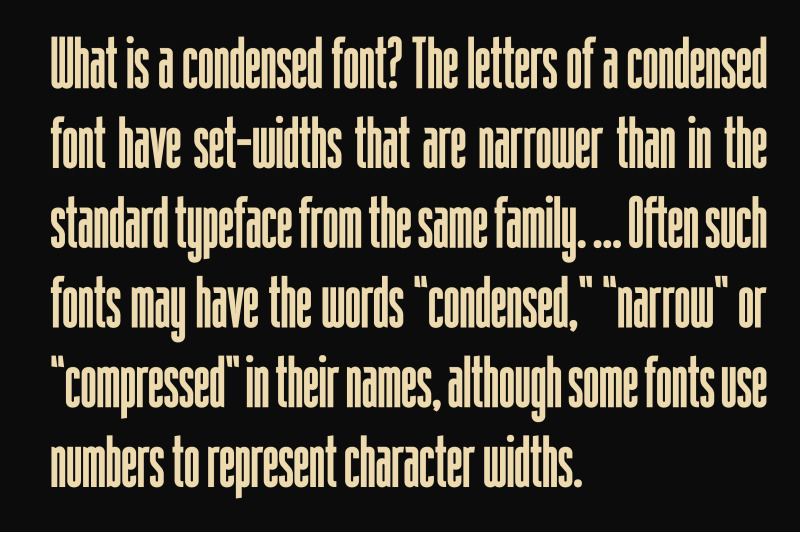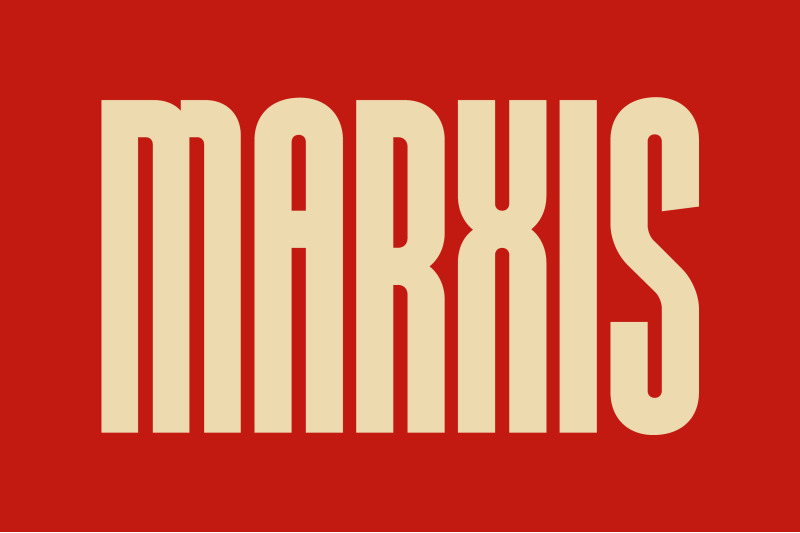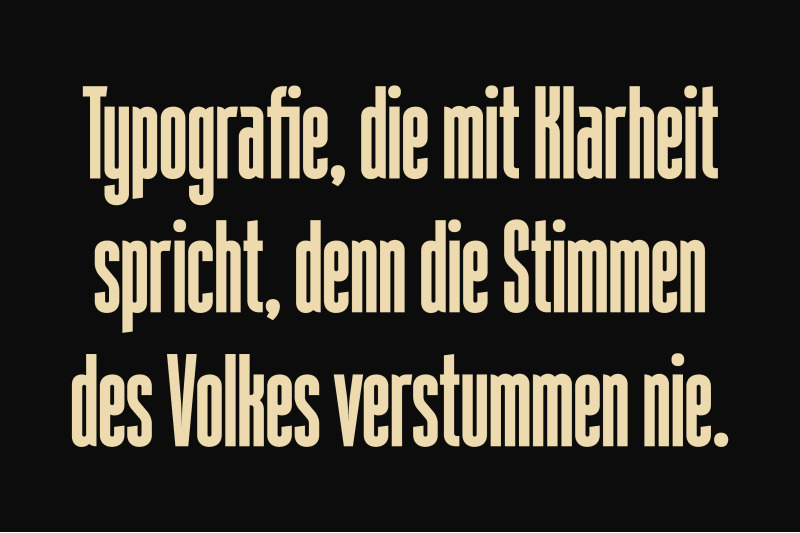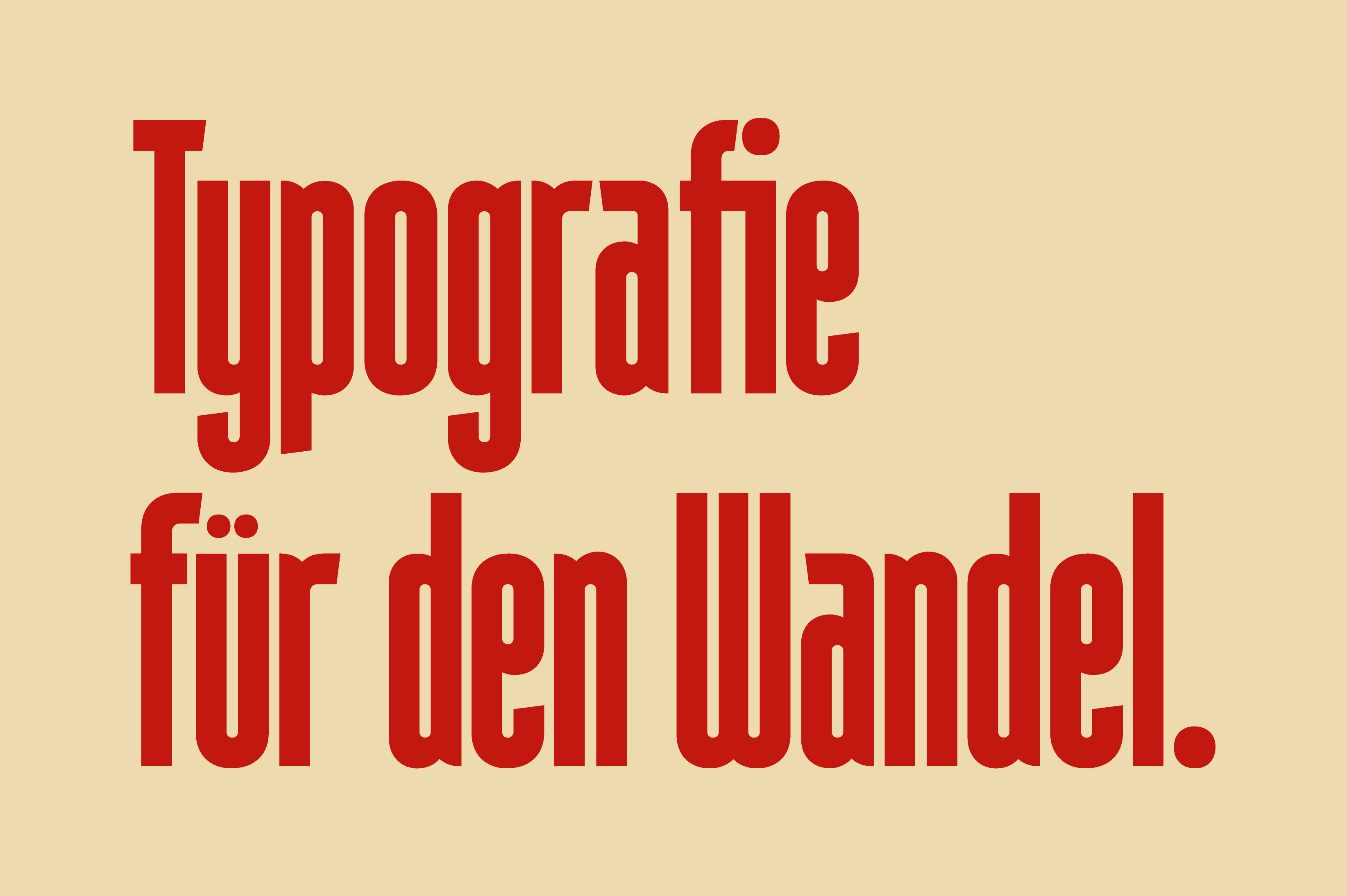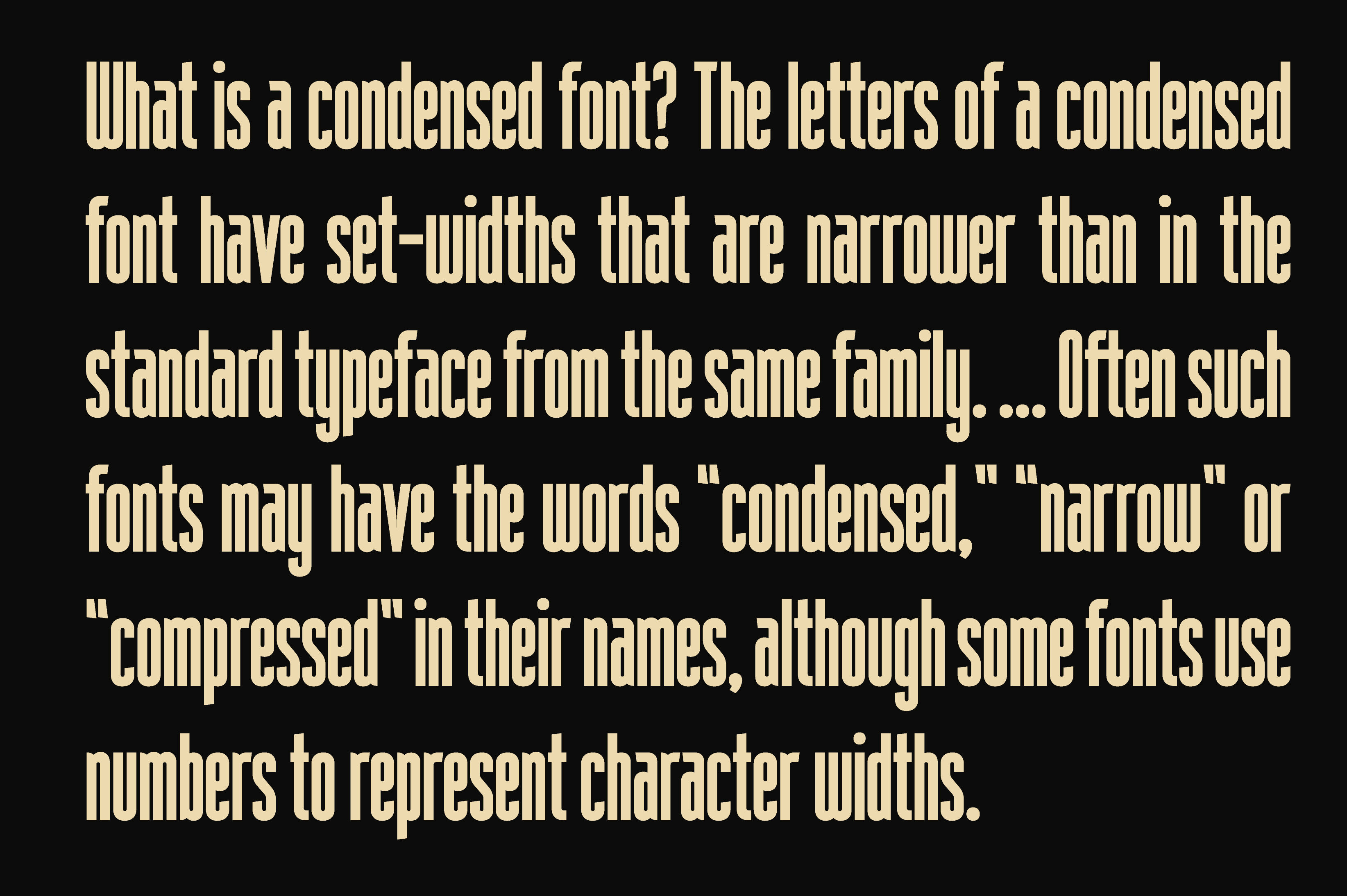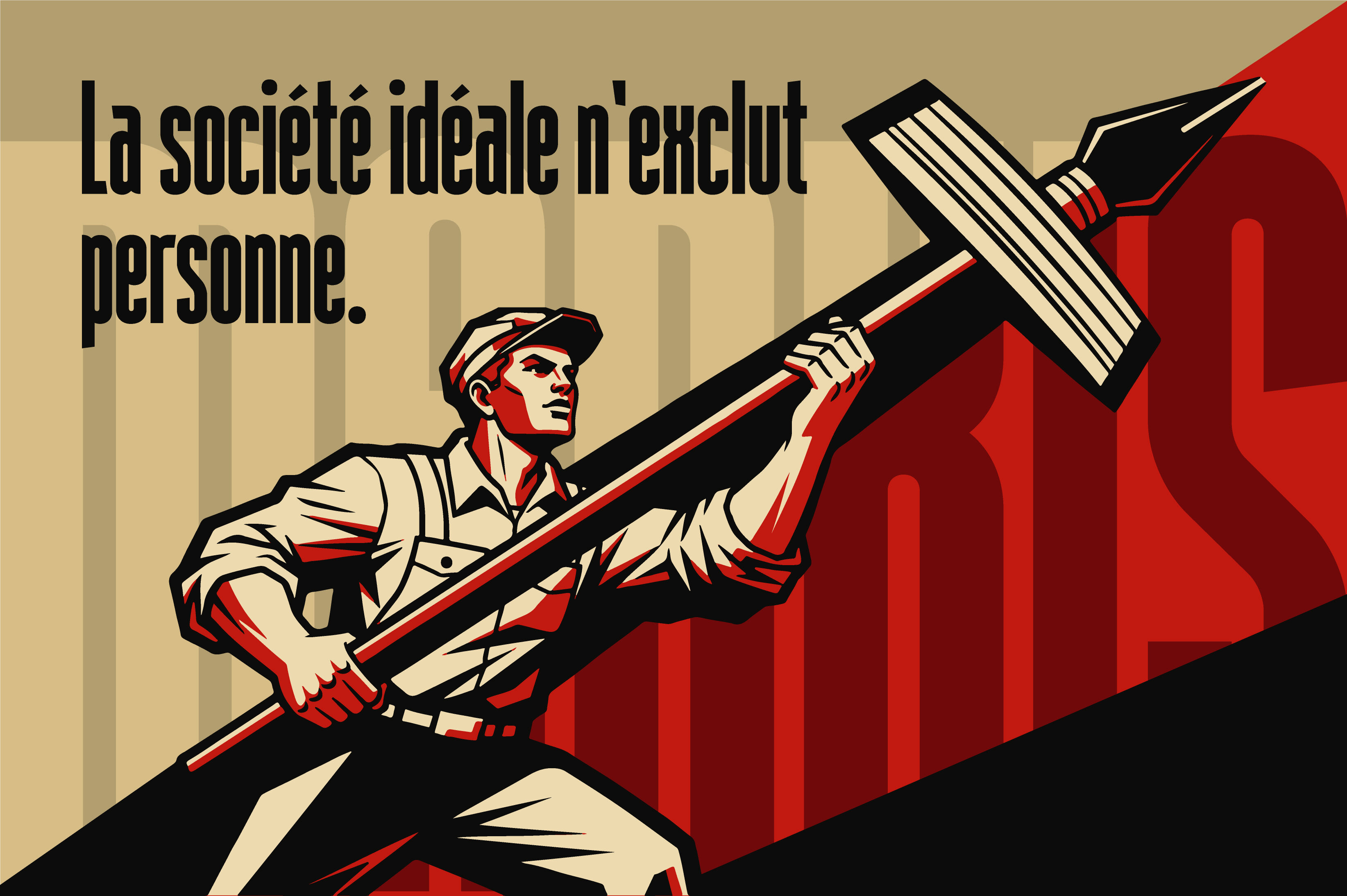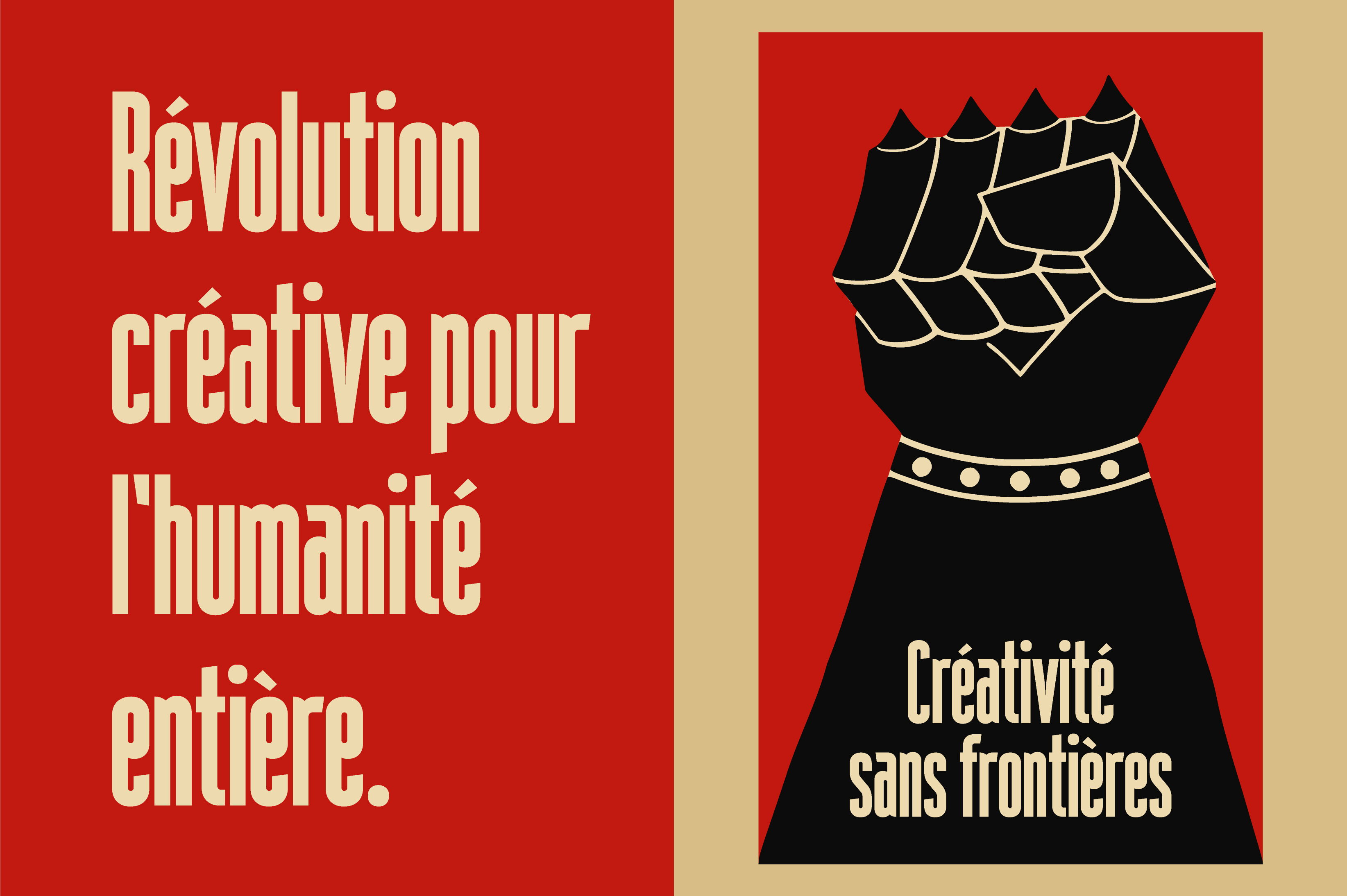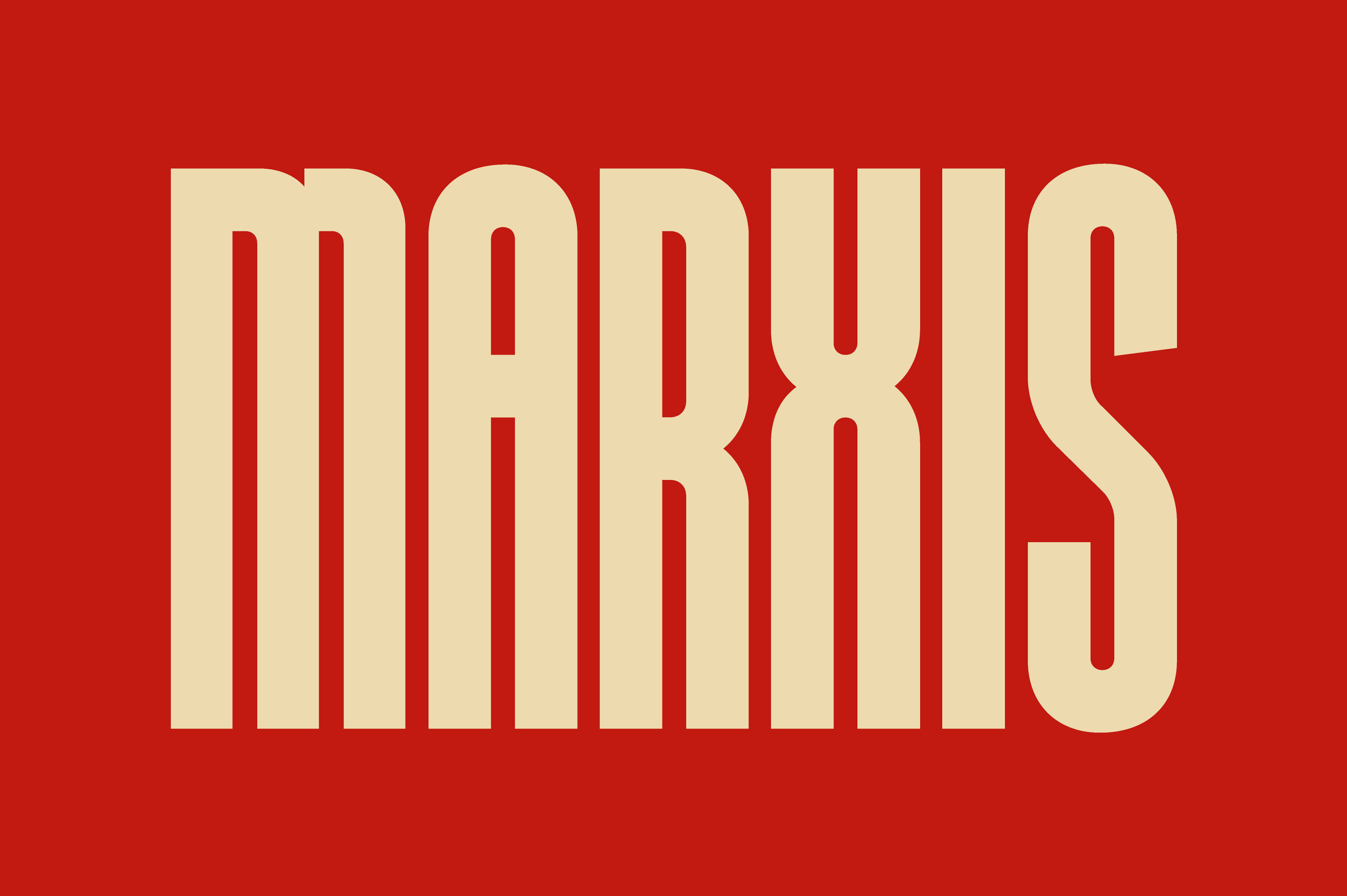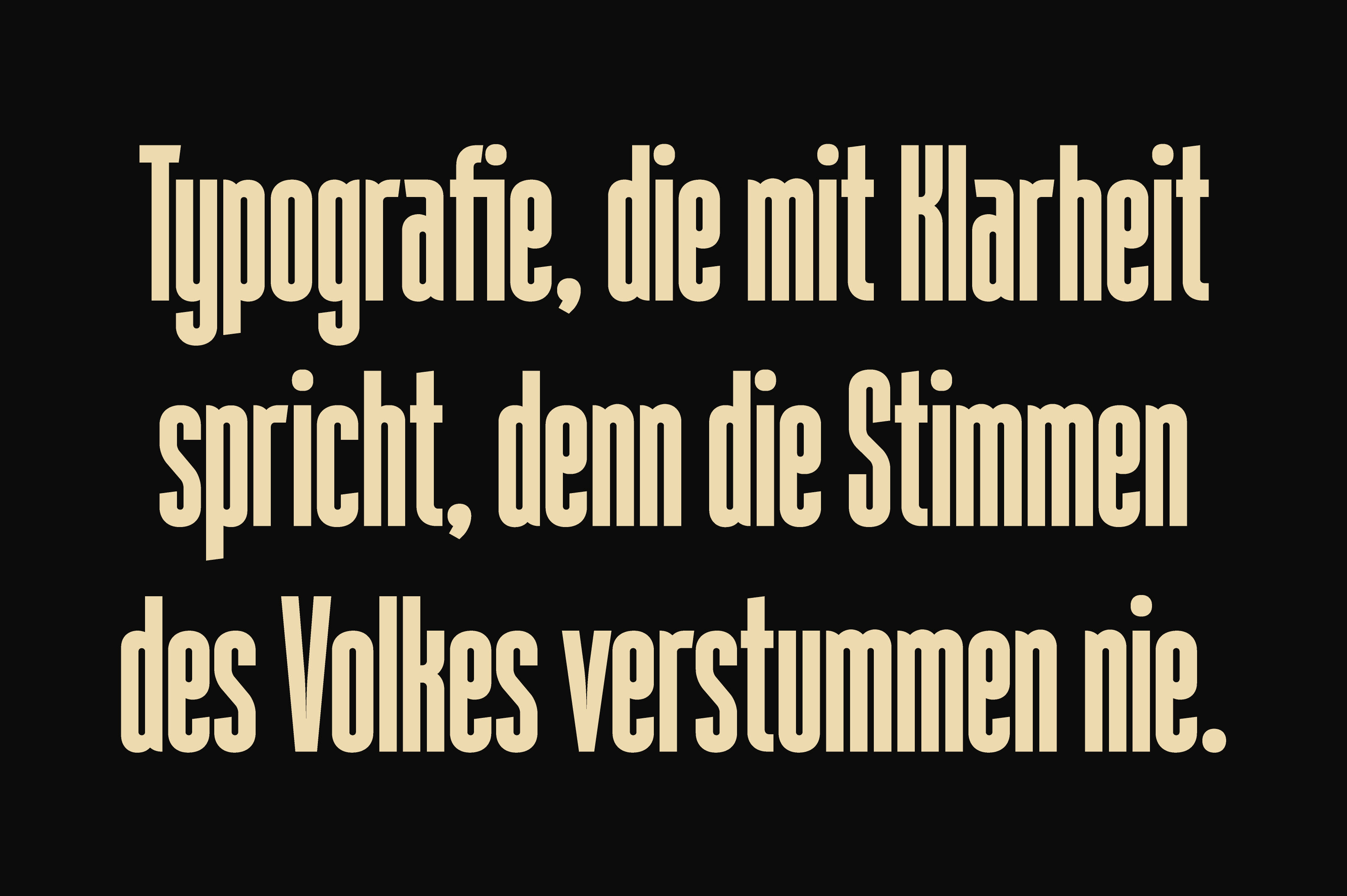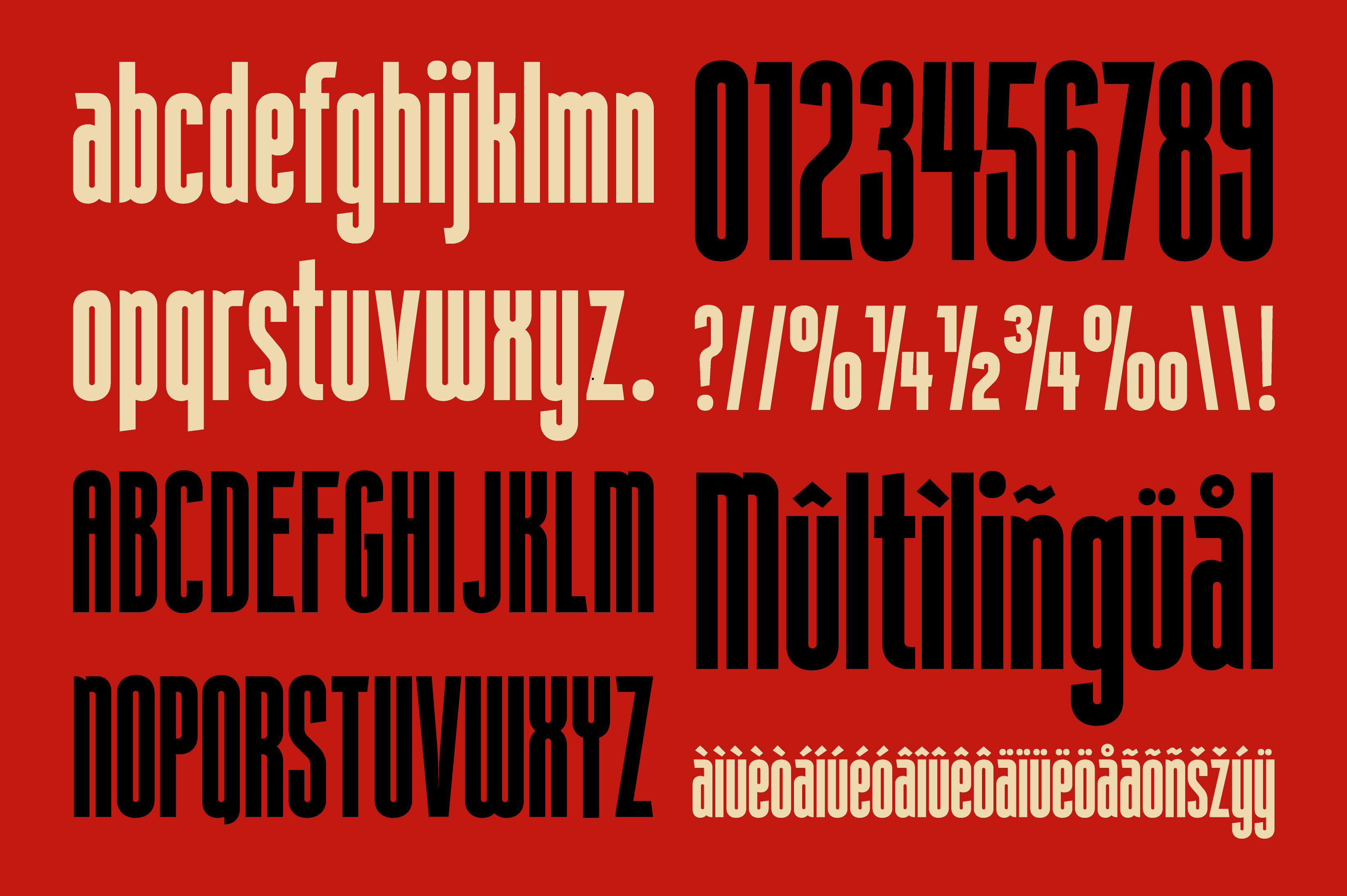
Marxis Font
Introducing Marxis, a retro condensed font that echoes the bold spirit of propaganda-era posters, vintage movie titles, and classic book covers. Its straight and compact letterforms are designed to create strong, eye-catching headlines with a timeless retro character. Available in Uppercase and Small Caps with ligatures, Marxis offers versatility for a wide range of creative projects. Perfect for titles, posters, branding, packaging, web design, illustrations, badges, and more. Marxis brings back the visual energy of mid-20th century design—bold, striking, and full of character.